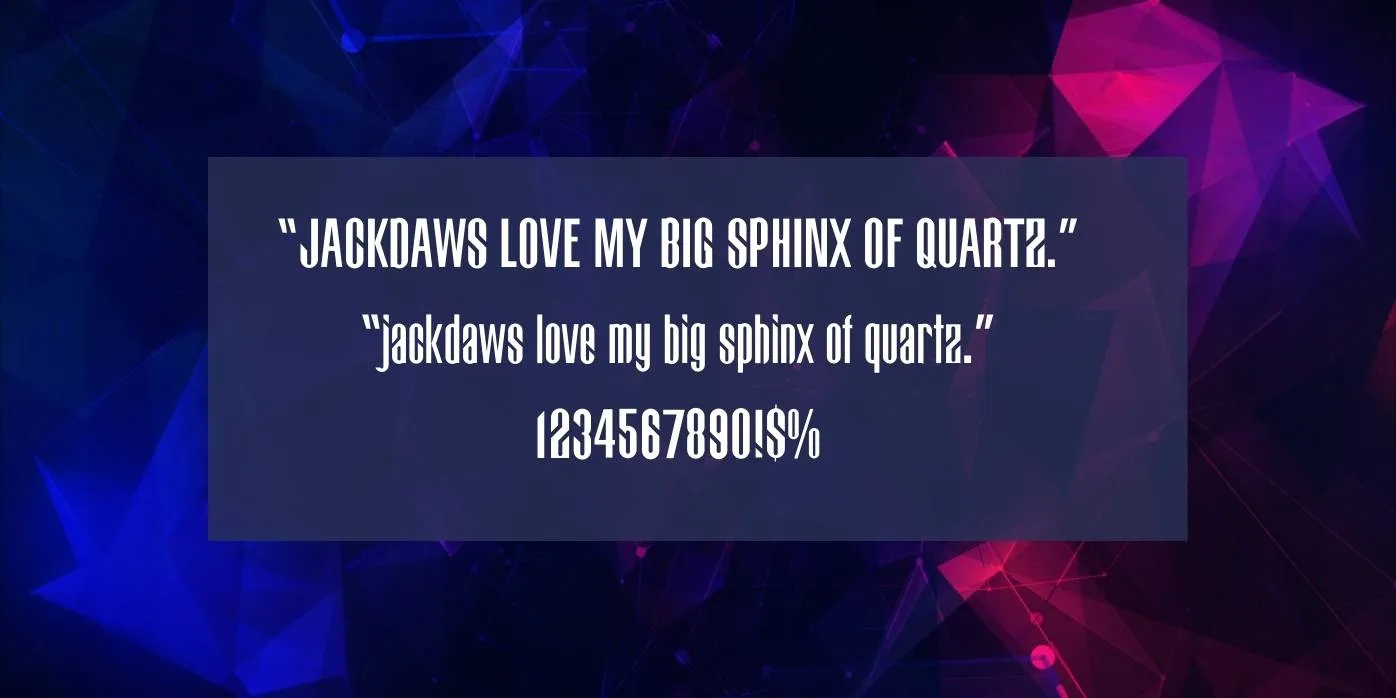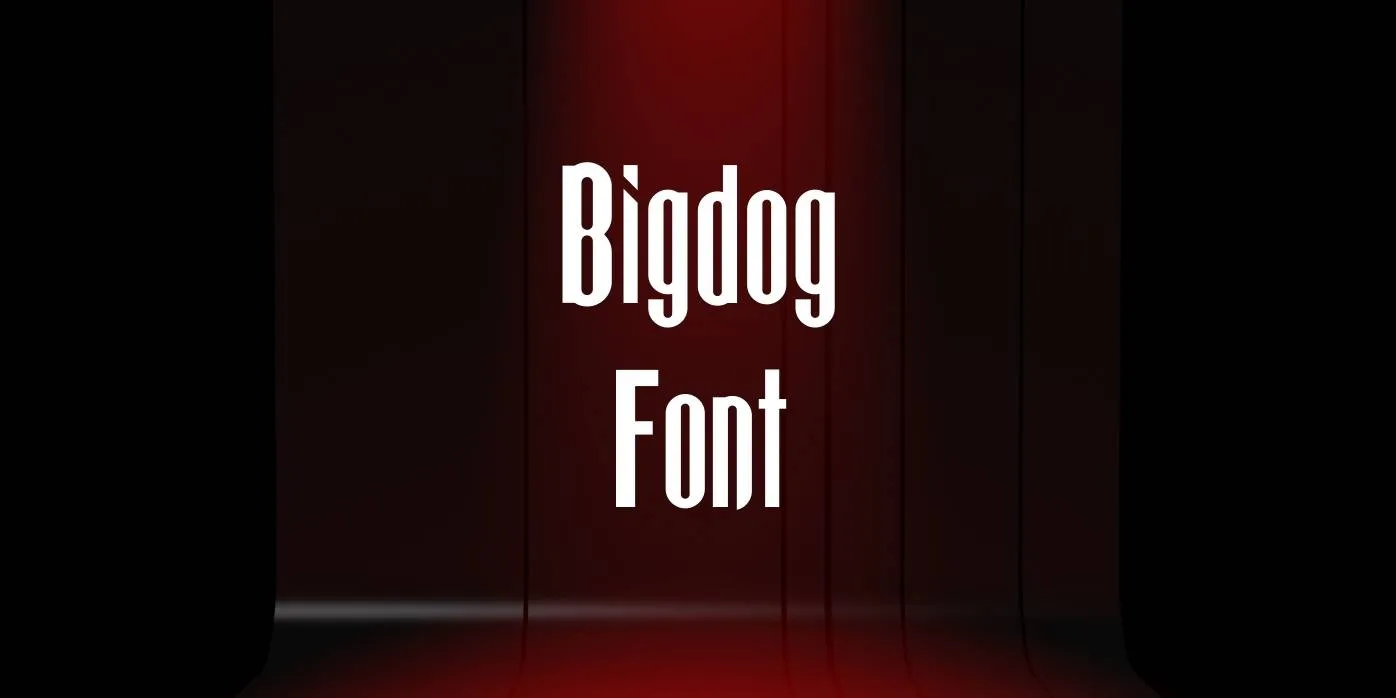
Bigdog Font
Today, we present a classic typeface that is known as Bigdog Font. This awesome typeface belongs to the category of the sans serif family. Justin Biddle is the designer of this family.  In 2013, he took the charge of Bigdog from the original designer, Dave Crossland. This sans serif typeface features strong shapes and has a tall x-height.
The terminal strokes are horizontal. And, it comes with a unique design that can give any text a stylish look. Its unique glyphs can be used to create interesting logos, posters, and headlines. You can also utilize the copy-and-paste function of this family.
It is similar ge inspira font and is very classic. Bigdog is a versatile font family that can be used for both body copy and headlines. It consists of 12 styles including 6 weights (Light, Regular, Medium, Bold, Italic, and Black) and 2 widths (Normal and Condensed). The online generator tool of this family is well suitable for all of your designs.